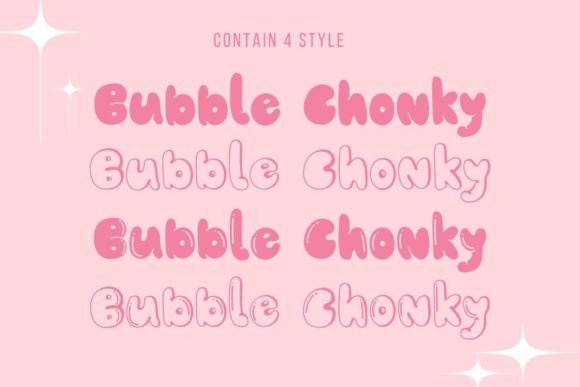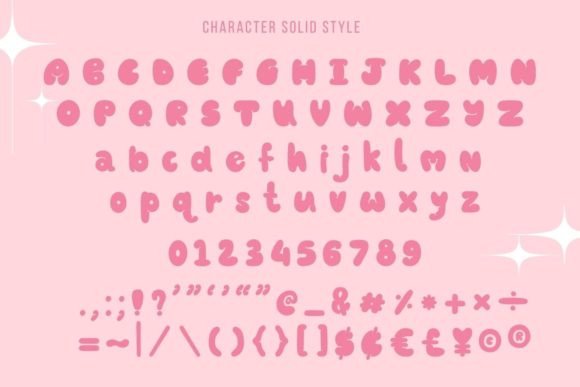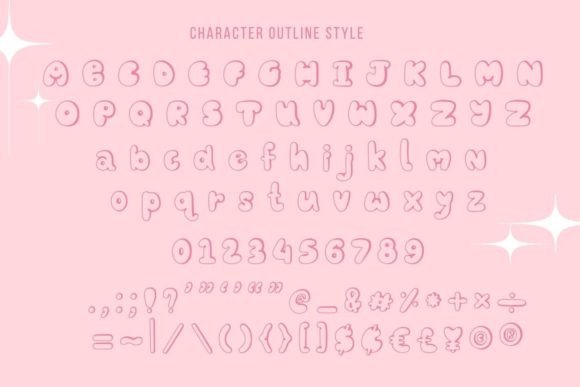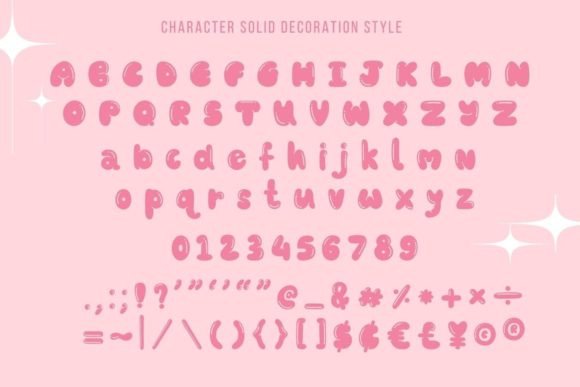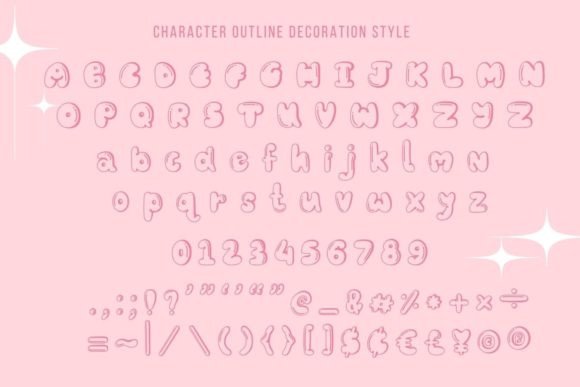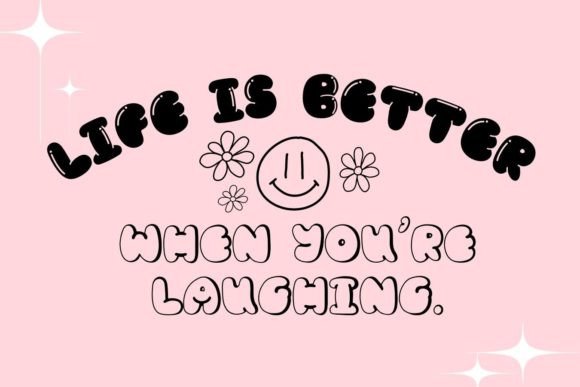
Introducing Bubble Chonky: The Font that Brings Adorable and Modern Playfulness to Your Designs!
Are you tired of using the same old fonts in your designs? Do you want to add a touch of whimsy and fun to your projects? Look no further than Bubble Chonky, the font that’s taking the design world by storm! With its unique spherical and chubby shape, Bubble Chonky is the epitome of cuteness. This font is designed to make a bold statement, capturing attention and leaving a lasting impression.
The Cuteness Factor
Bubble Chonky’s adorable design is sure to delight audiences of all ages. Its chubby, rounded shape gives it a playful and friendly feel that’s perfect for designs that need a touch of personality. Whether you’re creating merchandise, T-shirts, stickers, or packaging, Bubble Chonky’s cuteness factor is sure to make your designs stand out from the crowd.
Four Distinct Design Styles
One of the best things about Bubble Chonky is its versatility. This font comes in four distinct design styles, each with its own unique character. Whether you’re looking for a bold and playful font or a more subtle and elegant one, Bubble Chonky has got you covered. With four different styles to choose from, you can explore different creative possibilities while maintaining the delightful charm that makes Bubble Chonky so special.
Bubble Chonky is a font that’s perfect for designers and crafters alike. Whether you’re creating professional designs for clients or working on personal projects, this font is sure to inspire your creativity. With its modern and playful design, Bubble Chonky is ideal for a wide range of projects, including:
- Merchandise: T-shirts, hoodies, tote bags, and more
- Stickers: Add a touch of fun and personality to your stickers
- Headings: Make a bold statement with your headings and titles
- Logos: Create a memorable and iconic logo with Bubble Chonky
- Branding: Add a touch of whimsy and fun to your brand’s identity
- Packaging: Make your packaging stand out with Bubble Chonky’s playful design
Why Choose Bubble Chonky?
So why choose Bubble Chonky over other fonts? Here are just a few reasons why this font is a cut above the rest:
- Unique design: Bubble Chonky’s spherical and chubby shape is unlike any other font out there
- Versatility: With four distinct design styles to choose from, you can experiment with different creative possibilities
- Cuteness factor: Bubble Chonky’s adorable design is sure to delight audiences of all ages
- Easy to use: This font is easy to read and works well in a variety of contexts
| Font Name | Bubble Chonky Font |
| Author | Issie_Studio |
In conclusion, Bubble Chonky is a font that’s sure to bring adorable and modern playfulness to your designs. With its unique spherical and chubby shape, four distinct design styles, and versatility, this font is perfect for designers and crafters alike. Whether you’re creating merchandise, stickers, headings, logos, branding, or packaging, Bubble Chonky is sure to make a bold statement and leave a lasting impression. So why wait? Try Bubble Chonky today and add a touch of whimsy and fun to your designs!